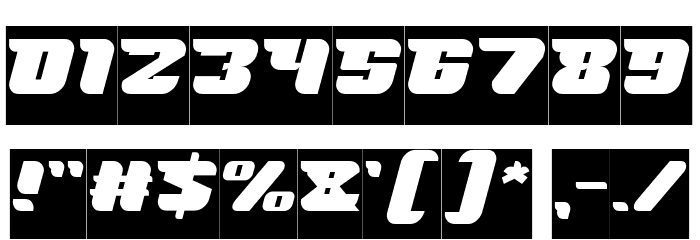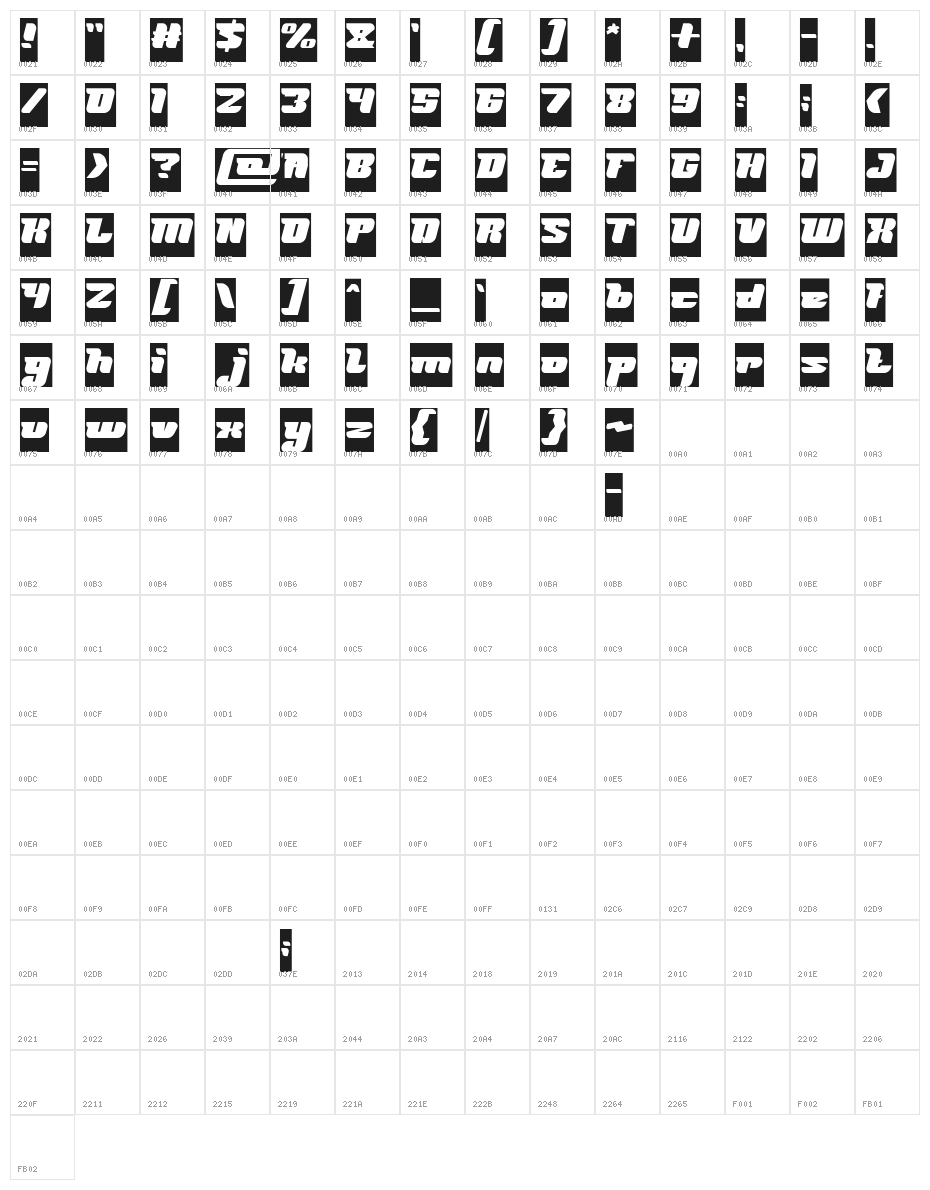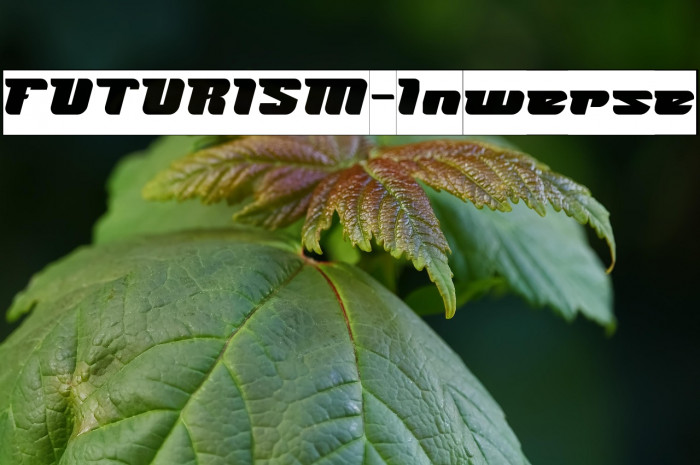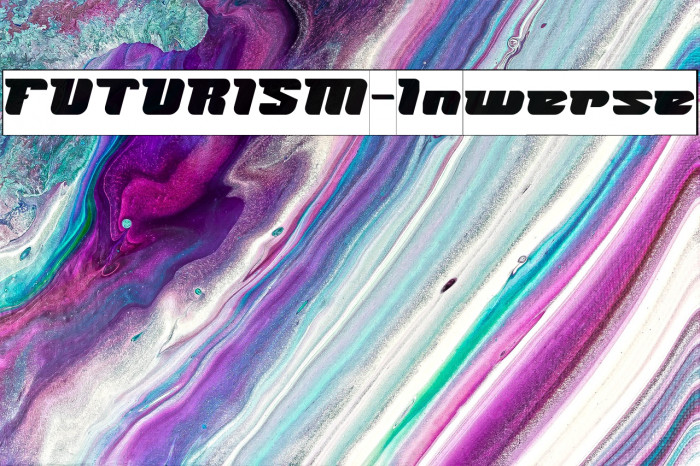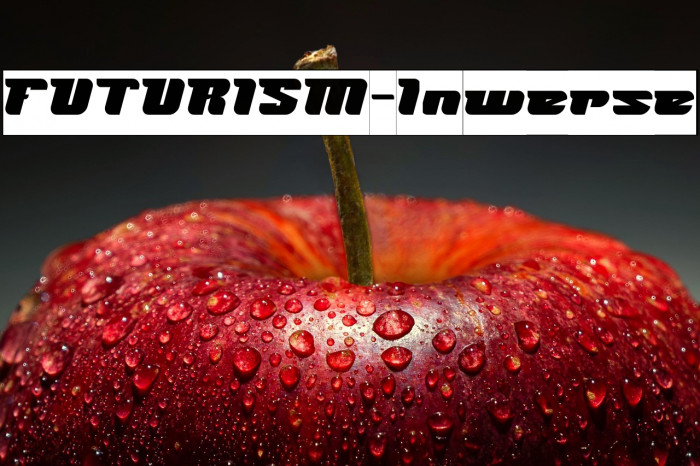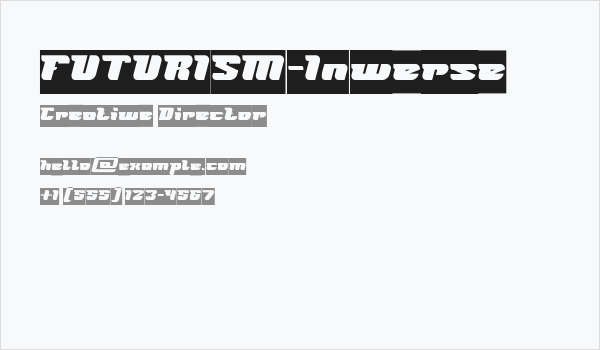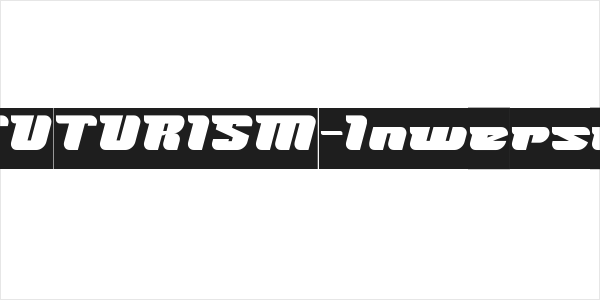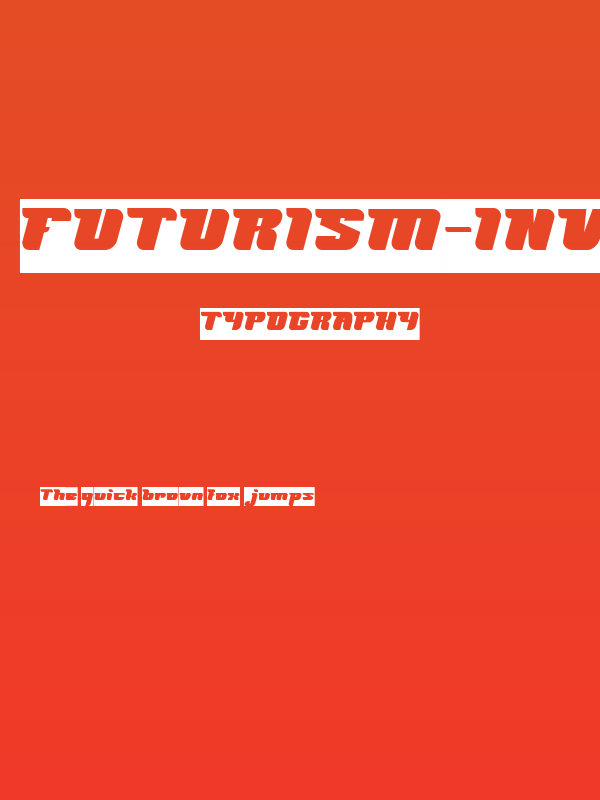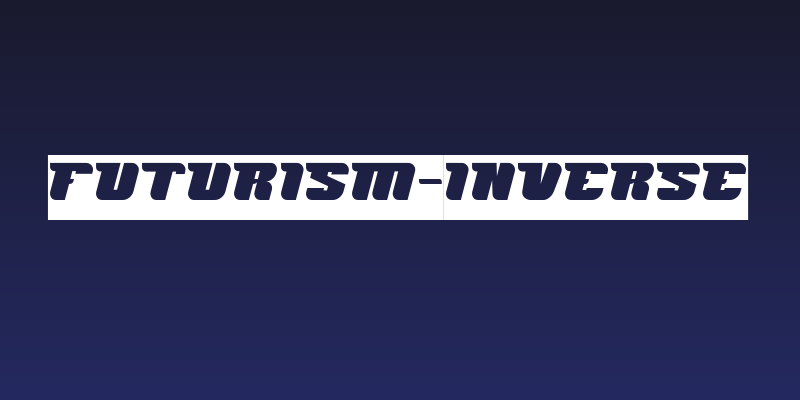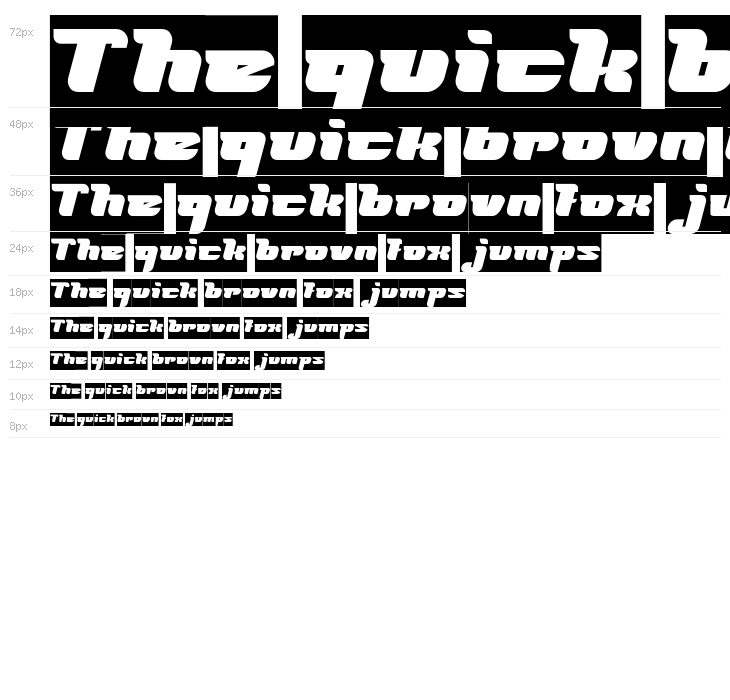
FUTURISM-Inverse Font
FUTURISM-Inverse Description
This font features a bold, futuristic design with a strong emphasis on geometric shapes and sharp angles. The characters are uniquely styled with a sense of motion and speed, making them ideal for dynamic and modern applications. The uppercase letters are particularly striking, with a consistent width and a slight slant that adds to the forward-moving aesthetic. The lowercase letters maintain the same boldness, ensuring readability while retaining the font's distinctive style. Numbers and special characters are designed to match the overall theme, providing a cohesive look across all text elements.